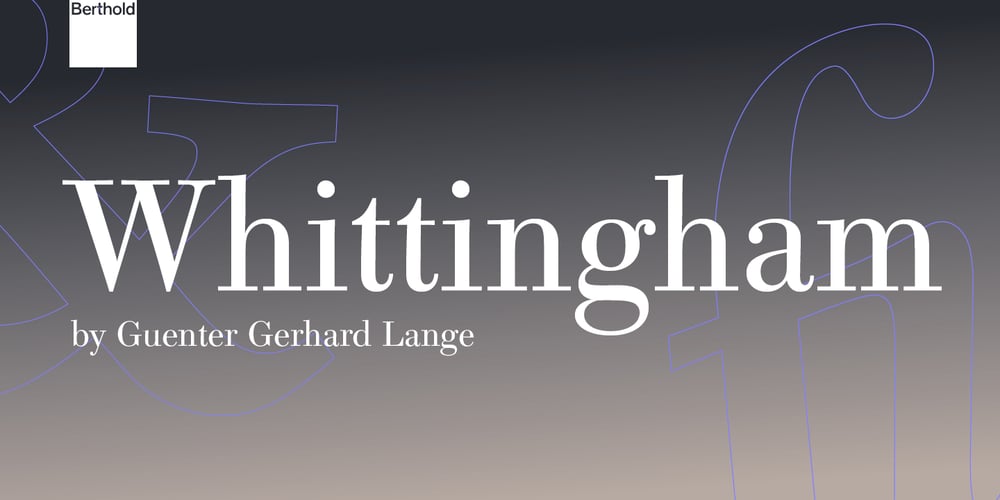
Whittingham Font Family was designed by Günter Gerhard Lange and published by Berthold. Whittingham contains 6 styles and family package options. Released in 2000 by Berthold, Whittingham is a new Berthold Exklusiv typeface designed by Günter Gerhard Lange, renowned master craftsman and exclusive artistic consultant to Berthold, and his colleague Dieter Hofrichter, also a Berthold Exklusiv designer (Vergil). Whittingham is a rendition of the type used around 1840 by Charles Whittingham, founder of the Chiswick Press in Birmingham, England. The Chiswick Press was one of the most successful commercial printing houses of the 19th Century. Berthold’s Whittingham retains characteristics of the Modern typefaces, like Bodoni and Walbaum, from the 18th Century, yet introduces a steel engravers’ appearance – especially in Whittingham’s italic weights – similar to the other examples of 19th Century Scotch types (e.g. Pica Roman No. 2, Scotch Roman, Caledonia). Günter Gerhard Lange and Hofrichter began developing Whittingham in 1992, and completed the family in 2000. They chose this typeface particularly for its distinguishing characteristics from other revivals of the same period. As with each Berthold Exklusiv, Whittingham was subject to multiple trial settings, submissions of enlargements and reductions, and numerous revisions. Günter Gerhard Lange and Hofrichter’s minute examination of every graphic nuance results in a finely tuned, new serif face.